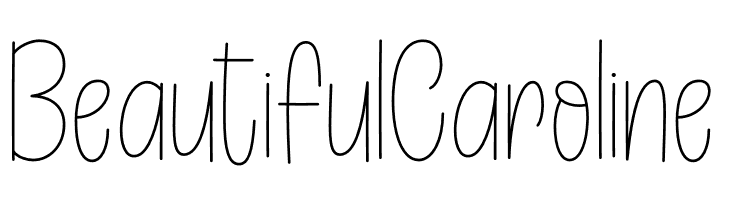
A tall, slender, and elegant handwritten-style font with smooth, flowing lines.
A playful handwritten font with tall, narrow letters and a whimsical style.